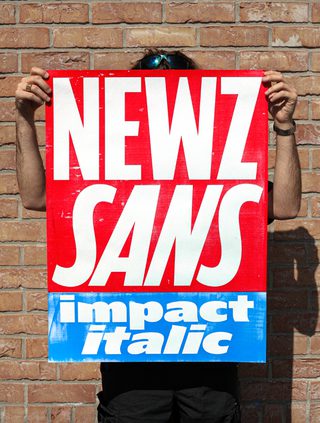
Manau Quellec’s Newz: louder than the noise
Inspired by popular culture, ideal for bold statements, intense, impactful, and loud. Meet NEWZ, a fresh typeface by the French graphic and type designer Manau Quellec, president of the Art and Design Schools Football League (READ), and the 11th recipient of the Gerard Unger Scholarship.
Esadtype class 23-25, at Pucestypo 2024.
What was your first thought when you realised you had received the Gerard Unger Scholarship?
I was really happy and relieved, but above all super excited to keep working on this project, and to be surrounded by an experienced team of designers!
What did your personal journey to type look like?
My design studies really confirmed something that was already there, a kind of intuition, sensitivity, and curiosity for letters, signs, logotypes… Once I was sure I wanted to dedicate all my energy to drawing letters, I was lucky enough to study at a school that also happened to host one of the best type design programs, the Type postgraduate course in Amiens. That really gave me the best possible foundation for learning the craft. It was definitely my most in-depth experience with type design.
My time at EsadType was also a huge privilege to meet incredibly talented classmates like Arnab Chakraborty, Yaprak Buse Çağlar, Oksana Sheinman, and so many others from the previous batches. Together, we’ve built a real community, the future of type design, made in Amiens.
But if I had to tell you my “type origin story” I’d say it started really early: I was obsessed with football logos. I used to redraw them as precisely as I could, using rulers, compasses, and markers. I was super proud of them. I even showed them off in the schoolyard.
Your passion did not end with drawing football logos, though. During your studies, you founded ÉSAD Amiens’ football club, and not only that…
We work in a very solitary field. Most of the time it’s just us and our screens. I’ve always been drawn to collective dynamics and the spirit of community, something that surely comes from my passion for football, which was everywhere in the Paris suburbs where I grew up. So when I brought team sports into art and design schools, it immediately sparked a new kind of energy. It first began at my school in Amiens with my closest schoolmates (@clubfootesad), and soon, by reaching out to other schools and sharing online, students started forming their own teams and wanting to connect. That’s how the Rencontre Étudiante d’Art et de Design — READ (@read.foot) was born.
It began as a simple football tournament, but after three editions it evolved into a full student symposium. It has now become an annual gathering for art and design students: a festival with talks, exhibitions, conferences, tournament, and concerts, a true space of collective creation, solidarity, and engagement. In a context marked by uncertainty and the economic difficulties of art education in France, READ offers a breath of fresh air for our generation, a shared space for connection, activism, and cooperation that celebrates diversity in practice and the power of togetherness.
Time is a rare thing in our profession. It allows ideas to mature, to develop into sensitive projects, but above all, to reach a high level of execution.
READ student symposium conference.
READ edition #3 in Nancy, 2024. © Photo Cassandre Anglade
You are the fifth EsadType graduate to receive the Gerard Unger Scholarship. At TypeTogether, we sometimes wonder what makes this course so special that we like their graduates’ fonts so much…
I am indeed the fifth student from EsadType to receive the Gerard Unger Scholarship, but I’m the first to have gone through the entire ÉSAD Amiens program, from the first year all the way to the postdiploma, before receiving the GUS! I arrived in Amiens at 19 and left at 26, which is quite rare, as most of my EsadType classmates only join for the postgraduate program.
I couldn’t tell you exactly what makes this school so “special,” but I can say that at EsadType, we are given time (three full semesters). And time is a rare thing in our profession. It allows ideas to mature, to develop into sensitive projects, but above all, to reach a high level of execution. Of course, we are encouraged by our mentors to push our projects further, and in that sense, applying for the GUS scholarship felt like a natural continuation of that process.
With Newz, Manau Quellec has become the fifth EsadType graduate to receive the Gerard Unger Scholarship with Roxane Gataud (2014, Bely), Quentin Schmerber (2016, Temeraire), Florian Fecher (2019, Lektorat), and Emma Marichal (2022, Ploquine).
Workspace and room in London during the summer 2024.
You have experience working as an intern in a type foundry. What is the main difference between academic projects and "real-life" type design assignments?
EsadType first gave me a chance to level up my skills and explore. It was a space where I could really develop my sensitivity to projects, not just in terms of drawing letters, but in thinking about art direction, concept, and creative approach. I genuinely believe that creative qualities are very precious and best developed at school, while technical skills come with professional experience and real-world encounters. Now I know I still need to progress on a technical level, and only real work can give a concrete and accurate vision of what the profession truly demands in terms of technical know-how.
Does anyone know someone with a plane?
Manau Quellec, originally from Créteil in the eastern suburbs of Paris, studied graphic design and editorial practices at ÉSAD Amiens, where he also gained a foundation in type design. His education allowed him to experience diverse contexts, including studying at Bauhaus University in Germany, working at Oaza Studio and Publishing House in Zagreb, and interning at London’s Contrast Foundry during his EsadType postgraduate programme. Passionate about newspaper typography, Anglo-Saxon tabloids and British billboards, his typeface NEWZ seeks a transgenerational design, drawing from 18th‑century English press canons while embracing early 21st‑century popular culture. Somewhere between The Fast & The Furious and Figgins.